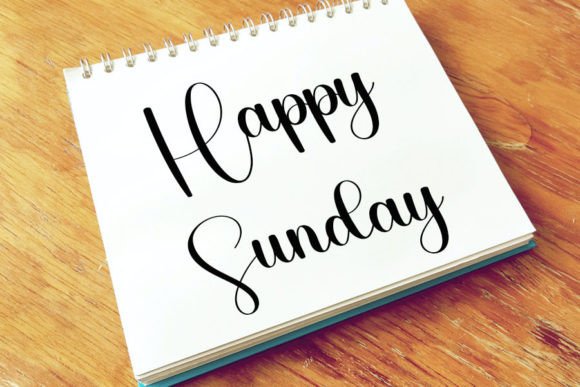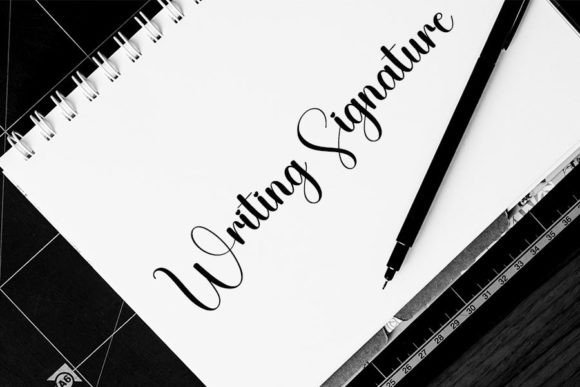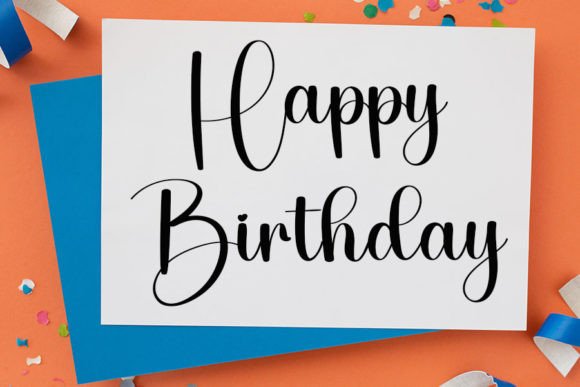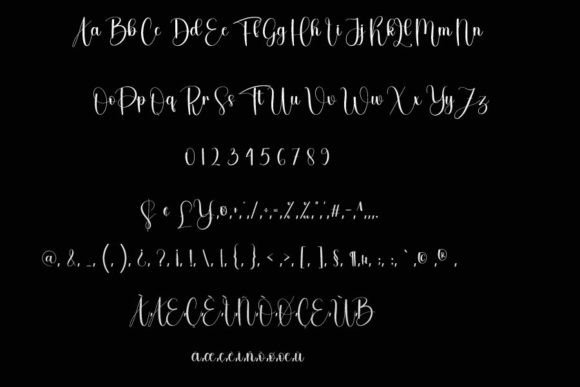
Hobby Font Download – Fun Handwritten Script
The Hobby Font download is a fun and friendly handwritten typeface designed to bring joy and personality to your creative projects. With its casual strokes and inviting style, this font works beautifully in both personal and professional designs. Whether you’re making greeting cards, digital graphics, or presentations, Hobby adds warmth and charm that make your work stand out.
A Fun and Approachable Style
The Hobby Font download features playful handwritten curves that make text look natural and welcoming. Its cheerful structure provides a personal touch while keeping clarity, making it perfect for designs that need to feel both engaging and easy to read.
Perfect for Crafts and DIY Projects
Crafters love fonts that feel handmade, and the Hobby Font download delivers just that. It works wonderfully for planners, stickers, scrapbooks, and handmade cards. Its approachable style ensures every project feels unique while still maintaining a neat and professional appearance.
Great for Digital Designs and Presentations
The Hobby Font download is also an excellent choice for digital design. From social media posts to slide presentations and blog headers, it helps your content connect with audiences in a friendly and stylish way. Its simple flow ensures versatility across both casual and formal projects.
Readability with Personality
Many handwritten fonts lean heavily on decorative elements, but the Hobby Font download strikes the perfect balance. Its fun style does not sacrifice clarity, ensuring your text looks attractive without losing readability in either large or small sizes.
Why Choose Hobby Font?
With so many handwritten fonts available, the Hobby Font download stands out for its playful charm, neat design, and wide range of applications. It is perfect for casual DIY projects but also professional enough for branding and digital work.
Add Playful Charm to Your Designs
Typography sets the tone of every project, and the Hobby Font download helps you add personality, fun, and friendliness to your work. Whether for crafts, presentations, or digital graphics, this font ensures your designs shine with creative energy.